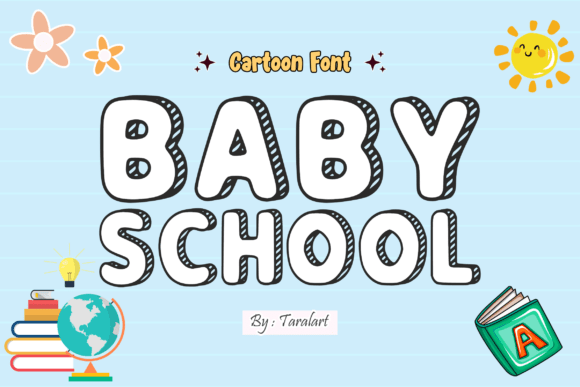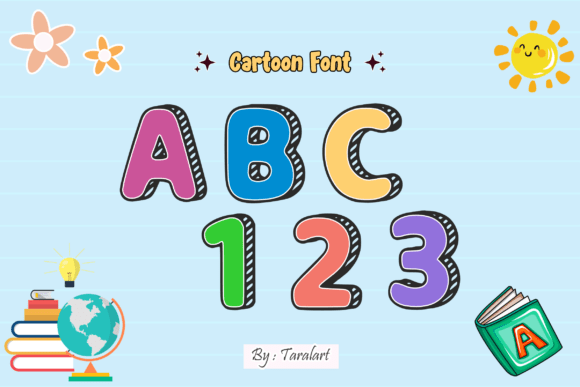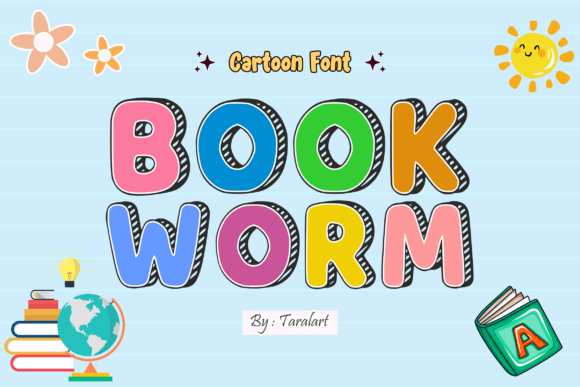
Discover the Whimsical World of Bookworm Font
I’ll never forget the time I was working on a children’s book project, and my client asked me to create a custom title page that would transport kids to a magical world. I spent hours scouring font libraries, but nothing seemed quite right. That’s when I stumbled upon Bookworm Font, and it was love at first sight! ✨
“Bookworm” is an ornamental typography specifically crafted with children’s enchanting world in mind. Every single character emanates a delightful charm and boasts a distinctive recognition, thereby breathing life into your designs.
A Personal Review of Bookworm Font
• ✨ Unique and playful character designs that add a touch of whimsy to any project
• 🎨 Extensive range of OpenType features, glyphs, and stylistic alternates to experiment with
• 🌈 Perfect for a variety of design applications, from children’s books to animations and merchandise
While Bookworm Font is an amazing addition to any design project, there are a few things to keep in mind: 🤔
• ⚠️ Some characters may not be suitable for body text, as they can be quite ornate
• ⚠️ Limited availability of certain special characters or diacritical marks
The Backstory Behind Bookworm Font
Bookworm Font was designed with the intention of capturing the magic and wonder of childhood. The designer, inspired by classic children’s books and animations, aimed to create a typography that would transport readers to a world of enchantment. With its unique character designs and extensive OpenType features, Bookworm Font is the perfect tool for designers and crafters looking to add a touch of whimsy to their projects.
What is Bookworm Font best suited for? Bookworm Font is ideal for children’s books, animations, comics, t-shirts, mugs, totes, and other merchandise.
Is Bookworm Font available in different languages? Bookworm Font may not support all languages, but it does include a range of special characters and diacritical marks.